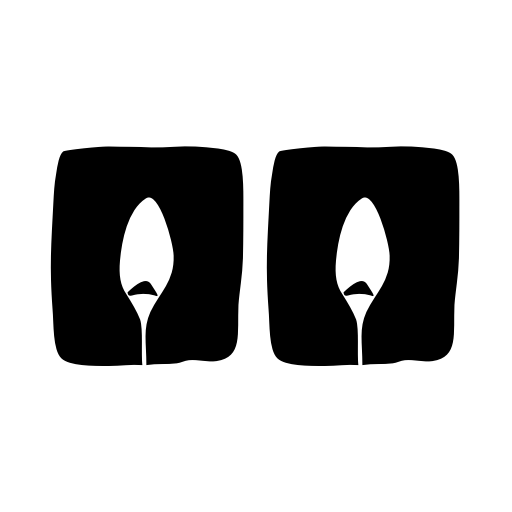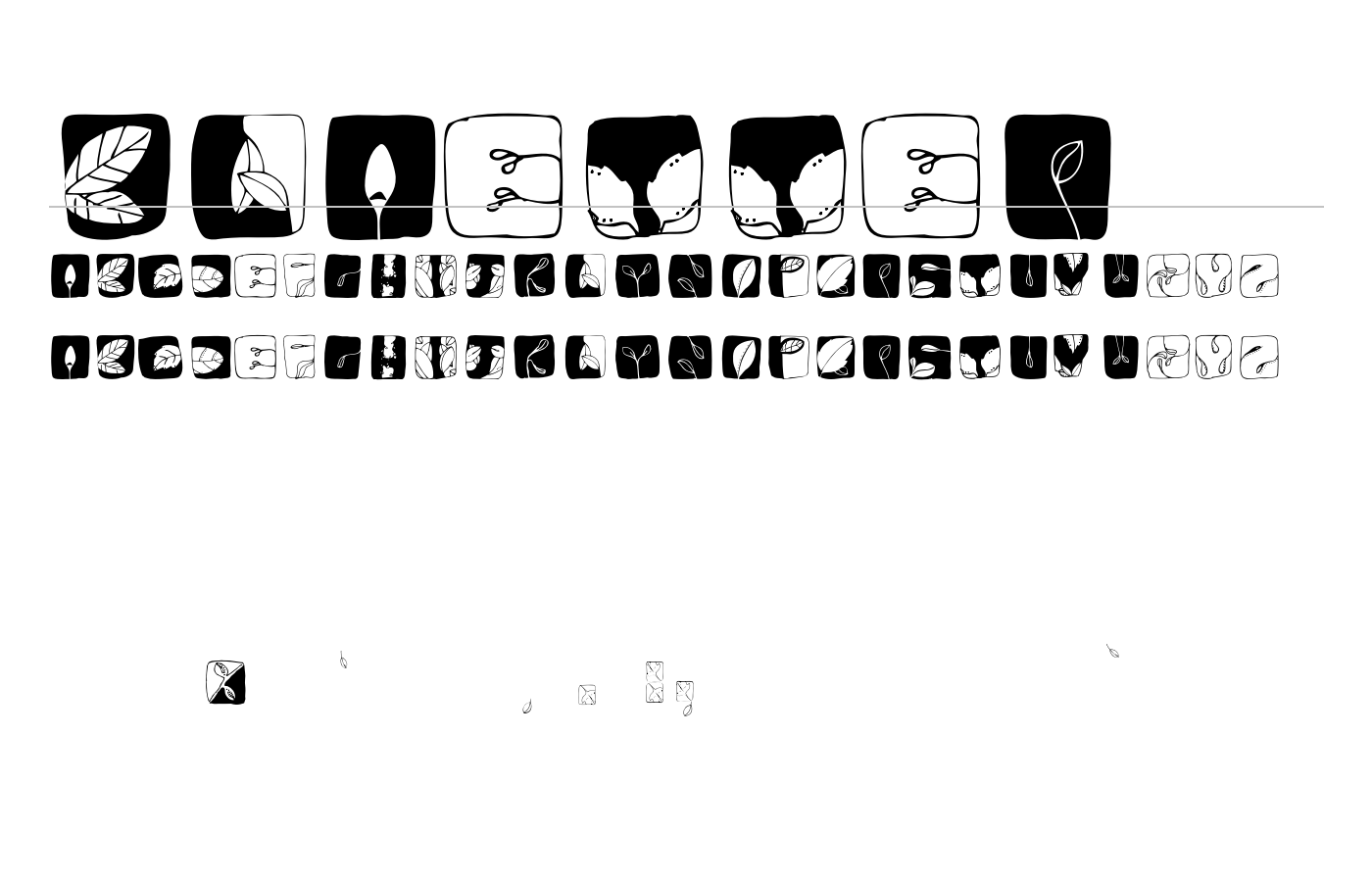
Blaetter Font is an artistic, decorative typeface that creatively integrates leaf motifs within each letter, making it more of a pictorial font than traditional text. Its unique black-and-white contrasts and organic curves give it a whimsical, nature-inspired feel, making it ideal for eco-friendly branding, art projects, and creative logos where a playful, botanical aesthetic is desired. This font works best in large display settings rather than body text due to its intricate and highly stylized design.
blaetter Font
About blaetter Font